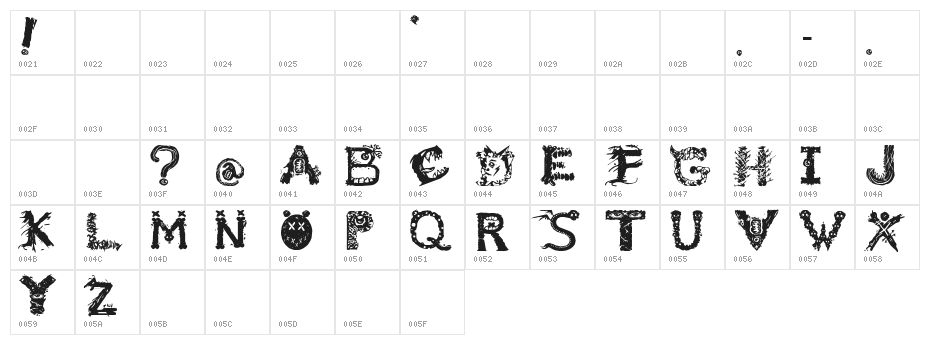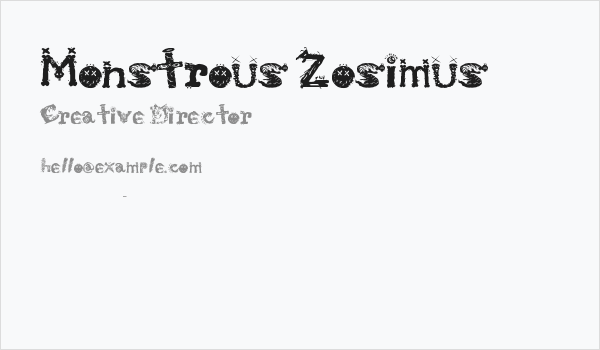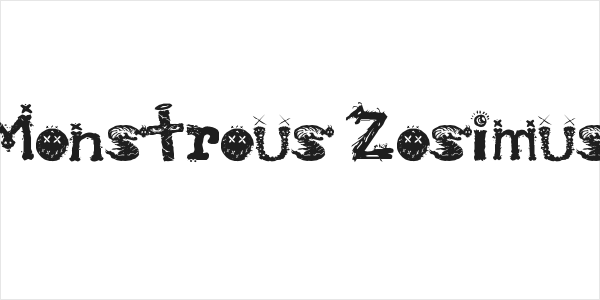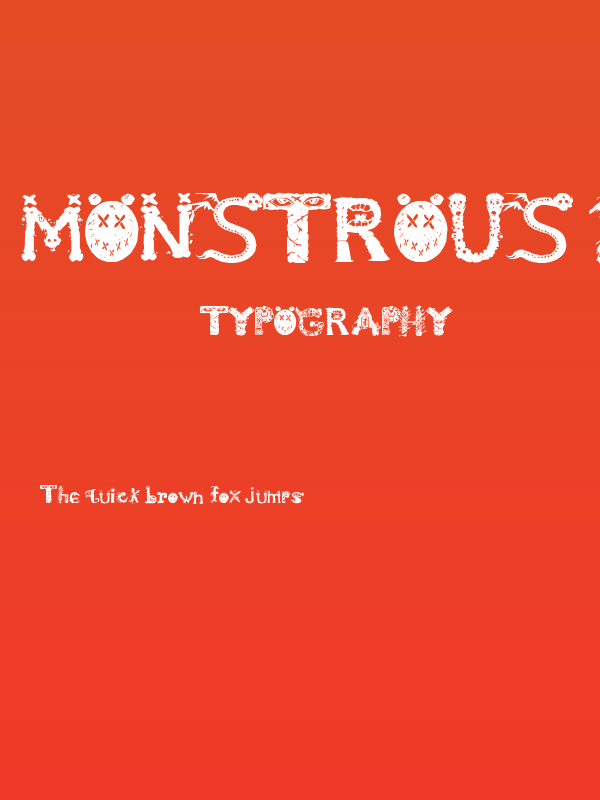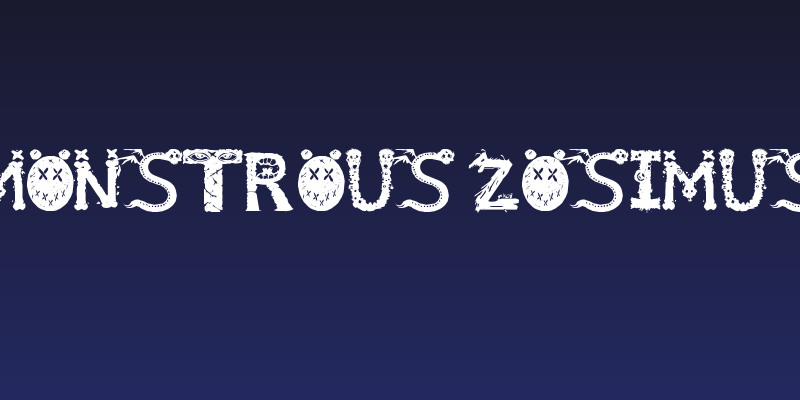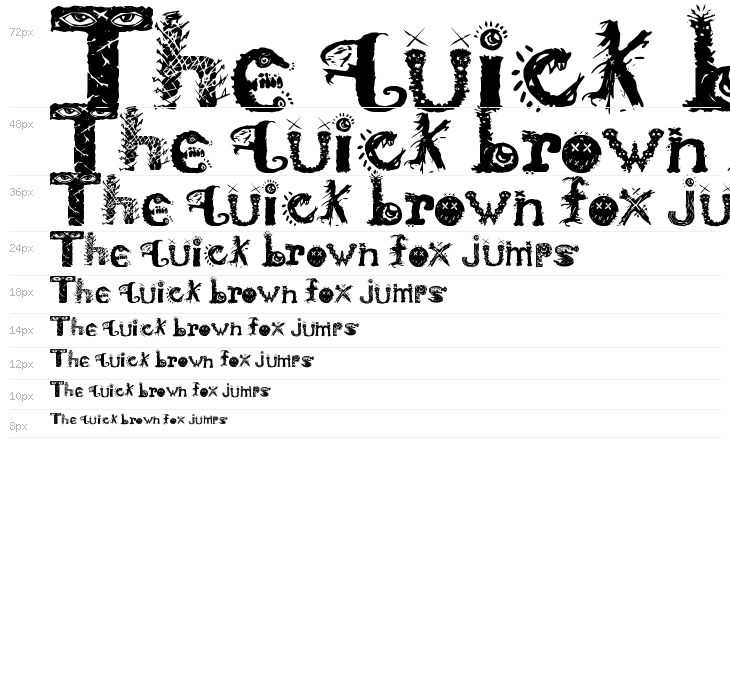
Monstrous Zosimus Font
Monstrous Zosimus Description
This font is a highly decorative and imaginative typeface that features intricate and monstrous designs within each character. Each letter is adorned with unique elements such as spikes, eyes, and tentacles, giving it a whimsical and eerie appearance. The uppercase and lowercase letters maintain a consistent theme, with each character presenting a different monstrous motif. The numbers and special characters follow the same creative style, making the font cohesive and visually striking. This font is perfect for projects that require a bold and unconventional look, such as Halloween-themed designs or fantasy-related content.
| Proposed Projects | Ideal for Halloween designs, fantasy book covers, themed posters, and creative branding. |